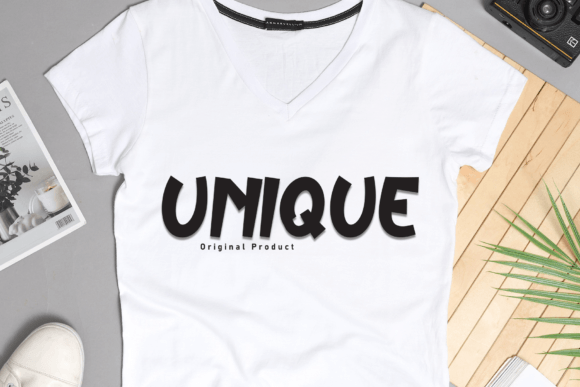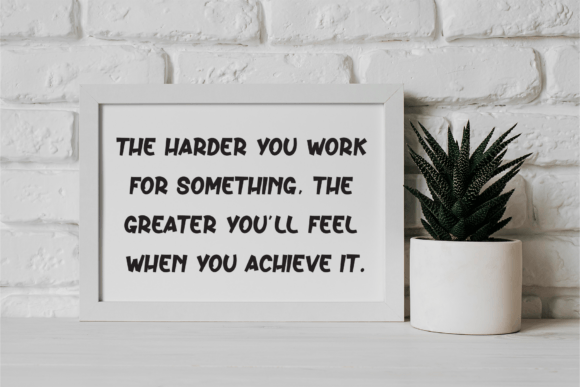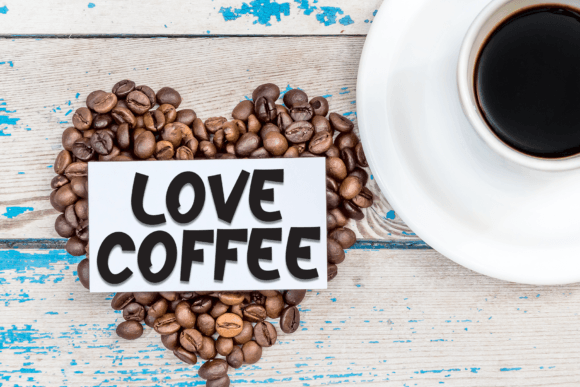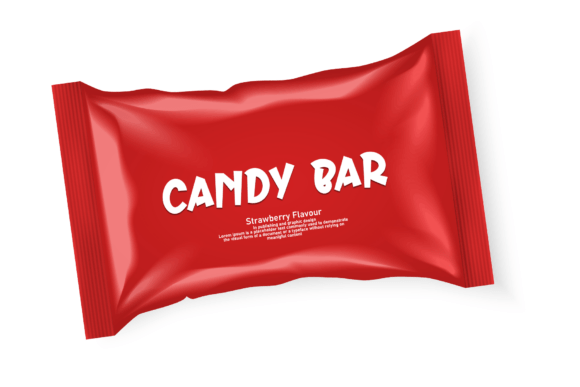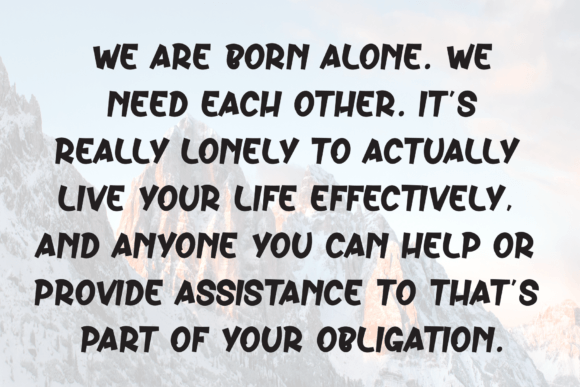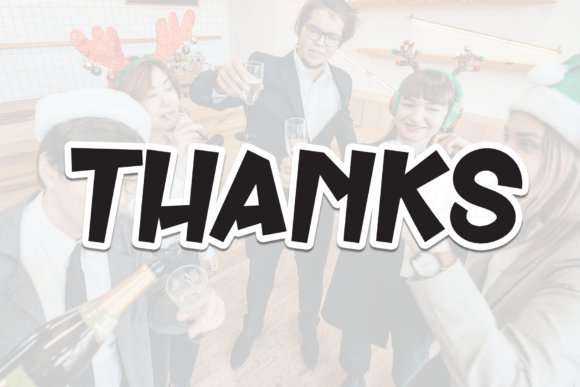
Introducing Hangouth Christmas Font: A Charmingly Playful Handwritten Display Font
Are you looking for a font that can add a touch of warmth and friendliness to your designs? Look no further than Hangouth Christmas Font, a charmingly playful handwritten display font that’s perfect for crafting wedding invitations, greeting cards, and other design projects that require a sprinkle of fun. In this article, we’ll introduce you to the Hangouth Christmas Font and explore its features, benefits, and uses.
A Sweet and Friendly Character
Hangouth Christmas Font is designed to be sweet and friendly, making it an ideal choice for designers and crafters who want to create designs that radiate joy and love. The font’s playful and handwritten style is perfect for adding a personal touch to your creations, whether you’re designing wedding invitations, birthday cards, or holiday greetings.
Delightful Flourish for Your Creations
One of the standout features of Hangouth Christmas Font is its ability to add a delightful flourish to your designs. The font’s playful and whimsical style makes it perfect for creating eye-catching headings, titles, and captions that will grab the attention of your audience. Whether you’re designing for print or digital, Hangouth Christmas Font is sure to add a touch of magic to your creations.
Hangouth Christmas Font is particularly well-suited for wedding invitations and greeting cards. The font’s sweet and friendly character makes it perfect for conveying love, joy, and warmth, making it an ideal choice for couples who want to create beautiful and personalized wedding invitations. Similarly, the font’s playful style makes it perfect for creating fun and festive greeting cards for birthdays, holidays, and other special occasions.
Crafting Designs that Radiate Joy and Love
With Hangouth Christmas Font, you can create designs that radiate an irresistible touch of joy and love. The font’s warm and friendly character makes it perfect for creating designs that are both personal and inviting. Whether you’re designing for personal or professional use, Hangouth Christmas Font is sure to help you create designs that will leave a lasting impression on your audience.
Key Features of Hangouth Christmas Font
- Charmingly playful handwritten display font
- Sweet and friendly character
- Perfect for wedding invitations, greeting cards, and other design projects
- Delightful flourish for your creations
Tips for Using Hangouth Christmas Font
Here are a few tips for using Hangouth Christmas Font in your designs:
- Use Hangouth Christmas Font as a headline or title font to add a touch of whimsy and fun to your designs.
- Pair Hangouth Christmas Font with other fonts to create a unique and eye-catching design.
- Use Hangouth Christmas Font to create personalized and customized designs for special occasions.
In conclusion, Hangouth Christmas Font is a charmingly playful handwritten display font that’s perfect for designers and crafters who want to add a touch of warmth and friendliness to their designs. With its sweet and friendly character, delightful flourish, and ease of use, Hangouth Christmas Font is an ideal choice for crafting wedding invitations, greeting cards, and other design projects that require a sprinkle of fun. So why not give Hangouth Christmas Font a try and see how it can help you create designs that radiate joy and love?